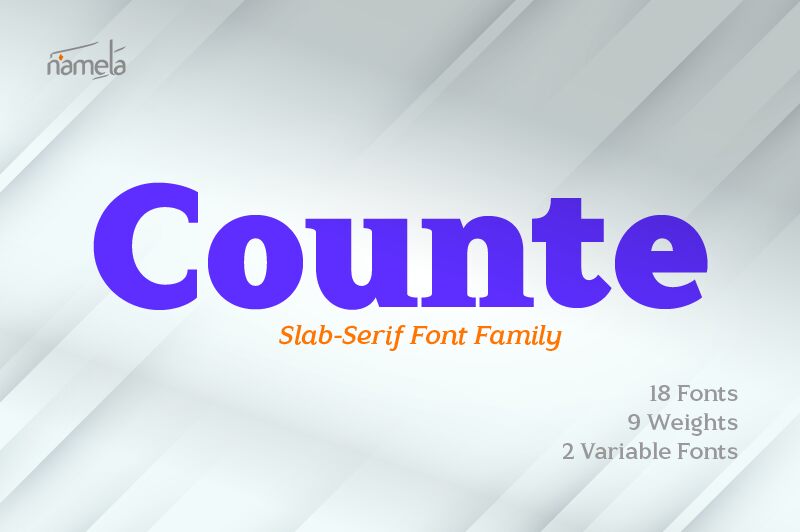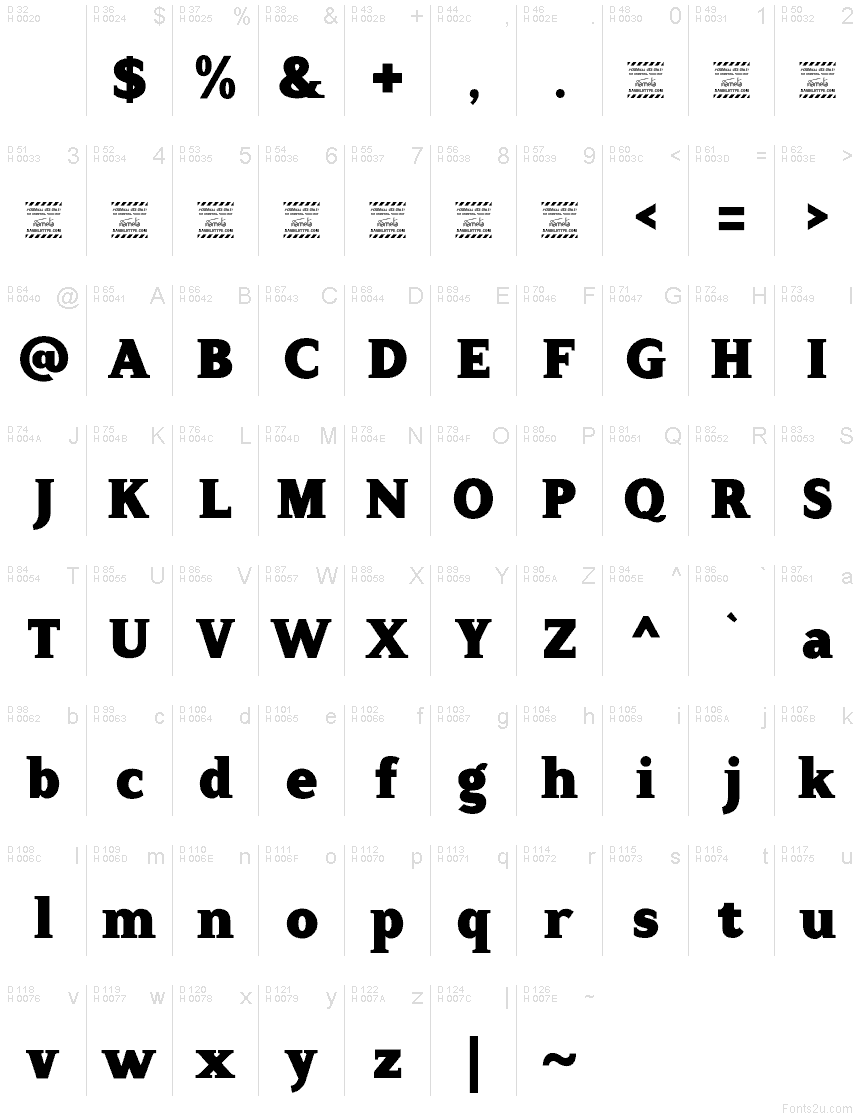
Counte DEMO Black
Counte Black font by Namela Type is a bold serif with a robust appearance and authoritative presence. This free traditional font possesses clean finishes on each character in the typeface, making it a great solution as both display typography and body typography for books.
Designers can benefit by implementing Counte Black into magazine layouts, newspaper designs, ebook pages, blogs, social media ads/articles, branded photo captions, product descriptions (especially self-care products), merchandise labels/tags, posters/billboards and more!